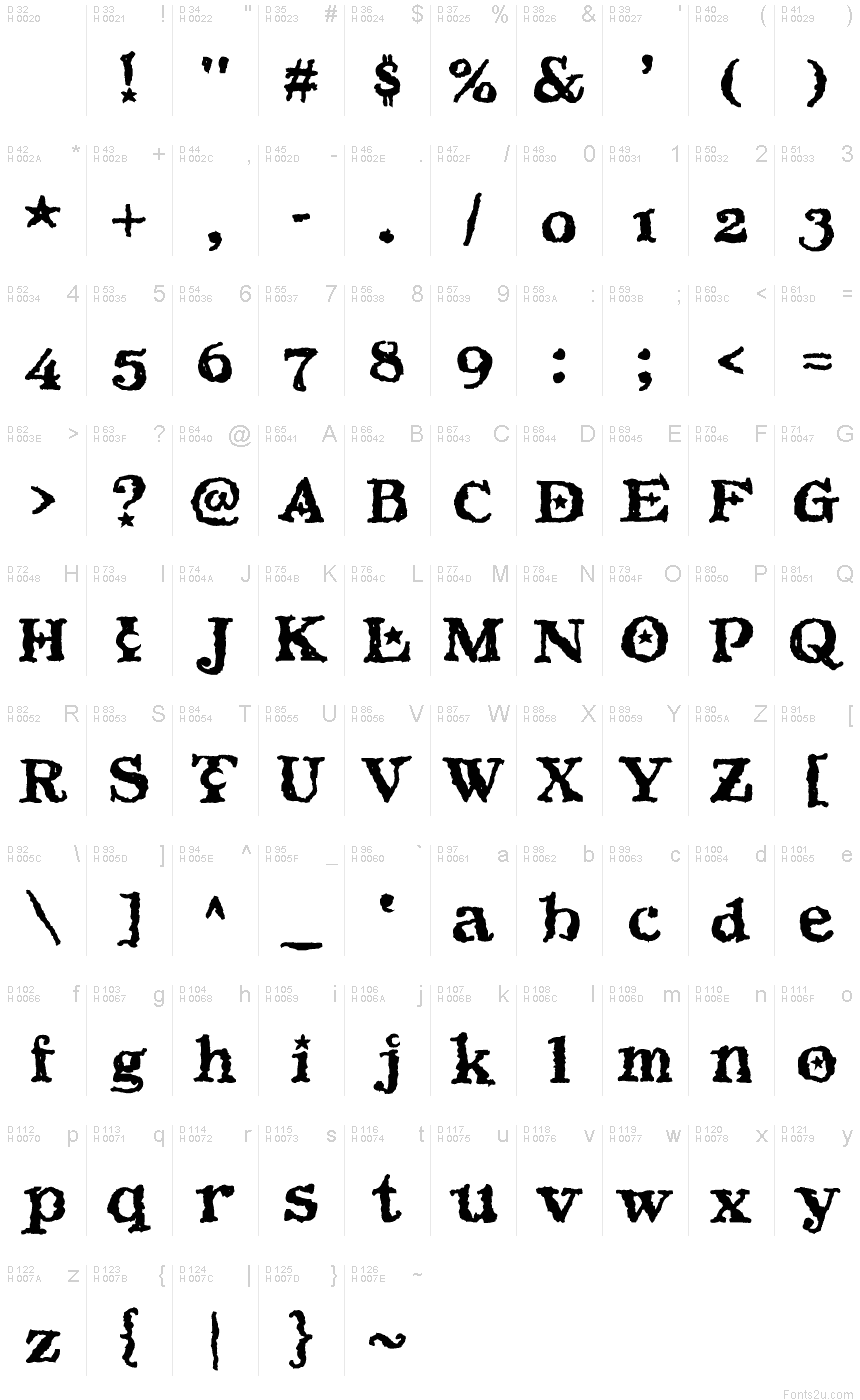
Beltane
Beltane font by Starving-4 Entertainment is a free eroded display typeface that looks like it’s been dragged through soot and smoke. The letters feel burned and weathered, with rough edges and ink-blot textures that suggest old ritual posters tacked to a stone wall. It has a strong, uneven rhythm that pulls the eye across a word, giving headlines a raw, handmade energy that’s hard to fake with filters alone.
This free font shines on horror movie titles, Halloween flyers, dark fantasy book covers, occult zines, escape room branding, metal or folk album art, and moody social media graphics. Using Beltane in large sizes lets the gritty details really show; pair it with a plain, modern sans serif for body text to keep everything readable while the Beltane font carries the atmosphere.